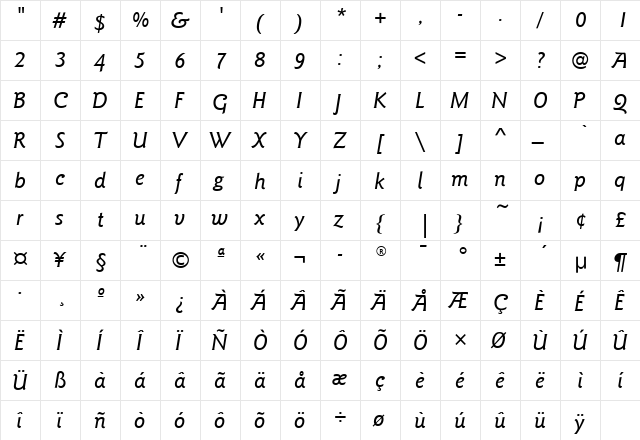
GoudySansMdITC Italic
Design Context for GoudySansMdITC Typeface
GoudySansMdITC offers clean, dependable letterforms without strong stylistic allegiance, making it a practical choice for designers who need flexibility. The slanted form adds forward momentum and visual energy.
Pro Tip: Use GoudySansMdITC for emphasis, pull quotes, and subheadings where its slanted energy can add rhythm to the layout.